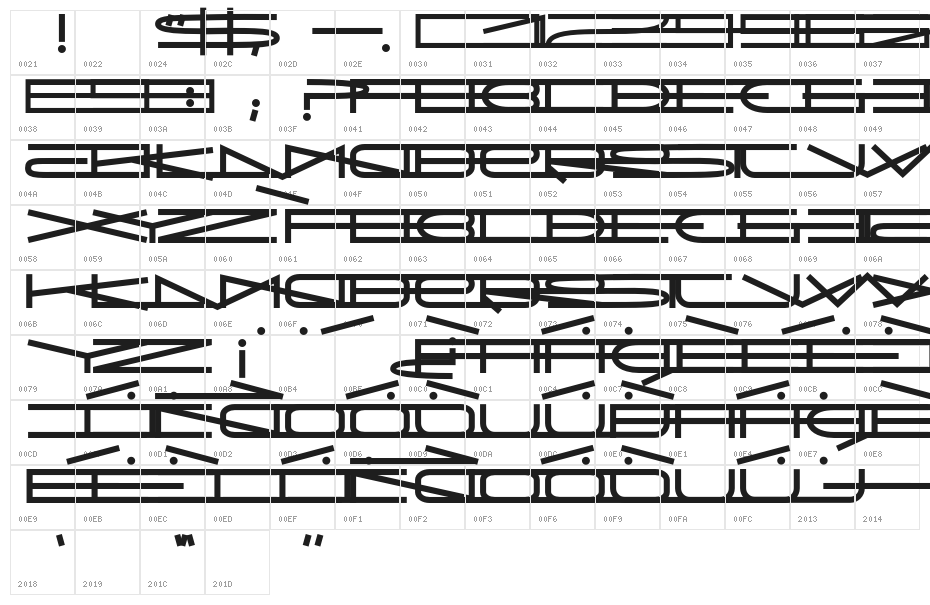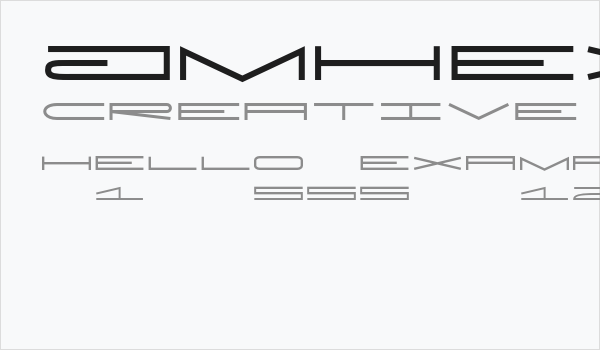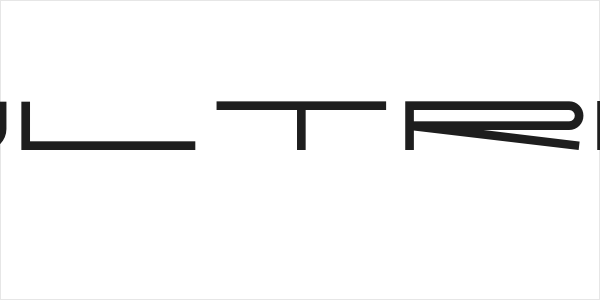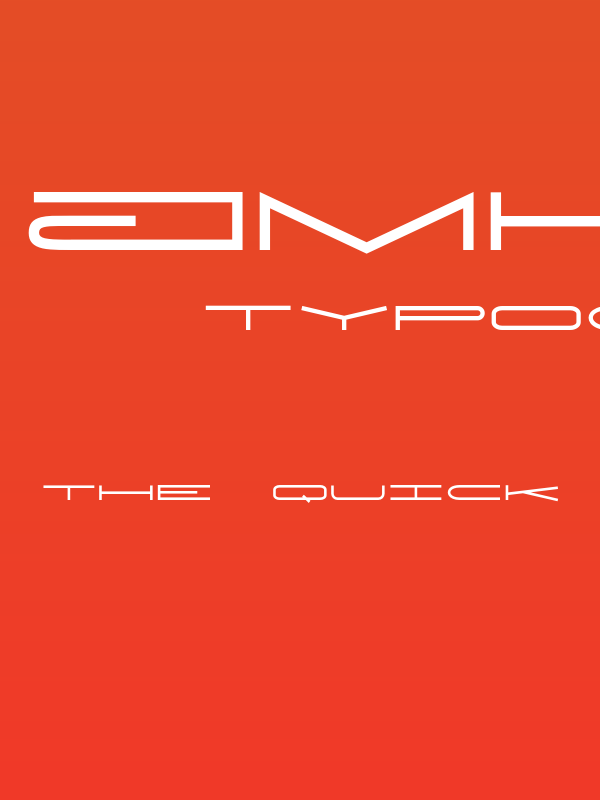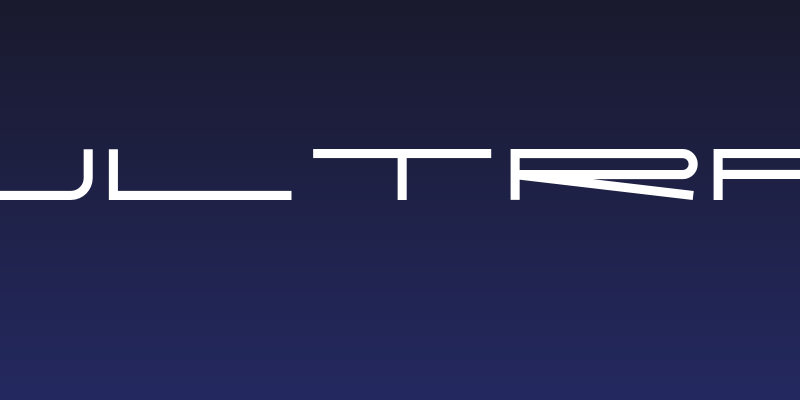
JMHExtraWide-UltraexpandedRegul Font
This font features an ultra-expanded and geometric design, characterized by its elongated and sleek letterforms. The characters exhibit a futuristic and minimalistic style, with consistent line thickness and sharp angles. The uppercase and lowercase letters maintain a uniform height, contributing to a cohesive and streamlined appearance. The numerals and special characters follow the same design principles, ensuring visual harmony across all glyphs. The overall aesthetic is modern and tech-inspired, making it suitable for contemporary design projects.
Proposed ProjectsIdeal for tech branding, sci-fi themed designs, modern posters, and digital interfaces.